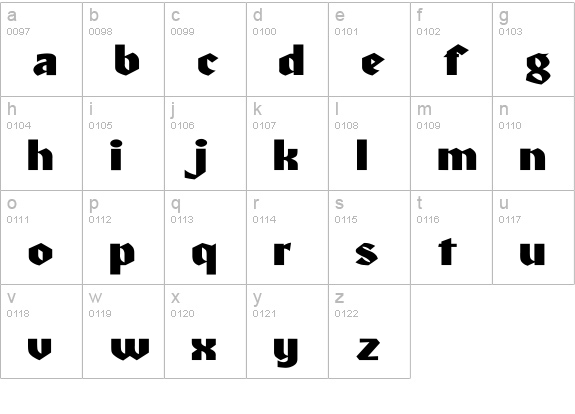
Heidelberg-Normal Ex Font Details
Heidelberg-Normal Ex is the standard, neutral variant in the Heidelberg typeface family \xE2\x80\x94 well suited to general body text, paragraphs, and standard typographic work.
Heidelberg-Normal Ex font is a stunning typeface that is sure to catch the eye with its elegant and modern design. This versatile font is perfect for a wide range of projects, whether it be for print or digital use. With its clean lines and well-balanced proportions, Heidelberg-Normal Ex font exudes a sense of sophistication and professionalism. It effortlessly blends classic and contemporary elements, making it suitable for both traditional and modern designs. One of the standout features of Heidelberg-Normal Ex font is its extensive character set, which includes a variety of international and special characters. This ensures that you have all the tools necessary to create captivating and visually appealing designs in multiple languages. What makes Heidelberg-Normal Ex font even more impressive is that it is free to download at FontsMarket.com. This means that you can enhance your designs without breaking the bank. Whether you are a professional designer or a hobbyist, this font is readily accessible for everyone. So why wait? Add a touch of elegance and sophistication to your next project with Heidelberg-Normal Ex font. Download it for free at FontsMarket.com and unleash your creativity today.